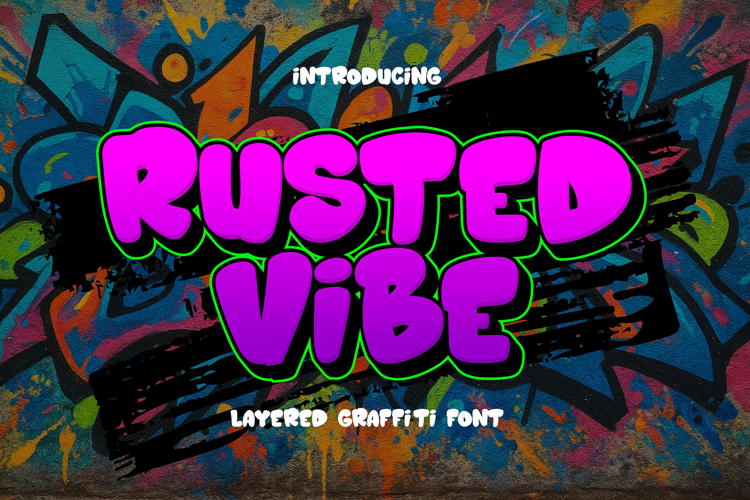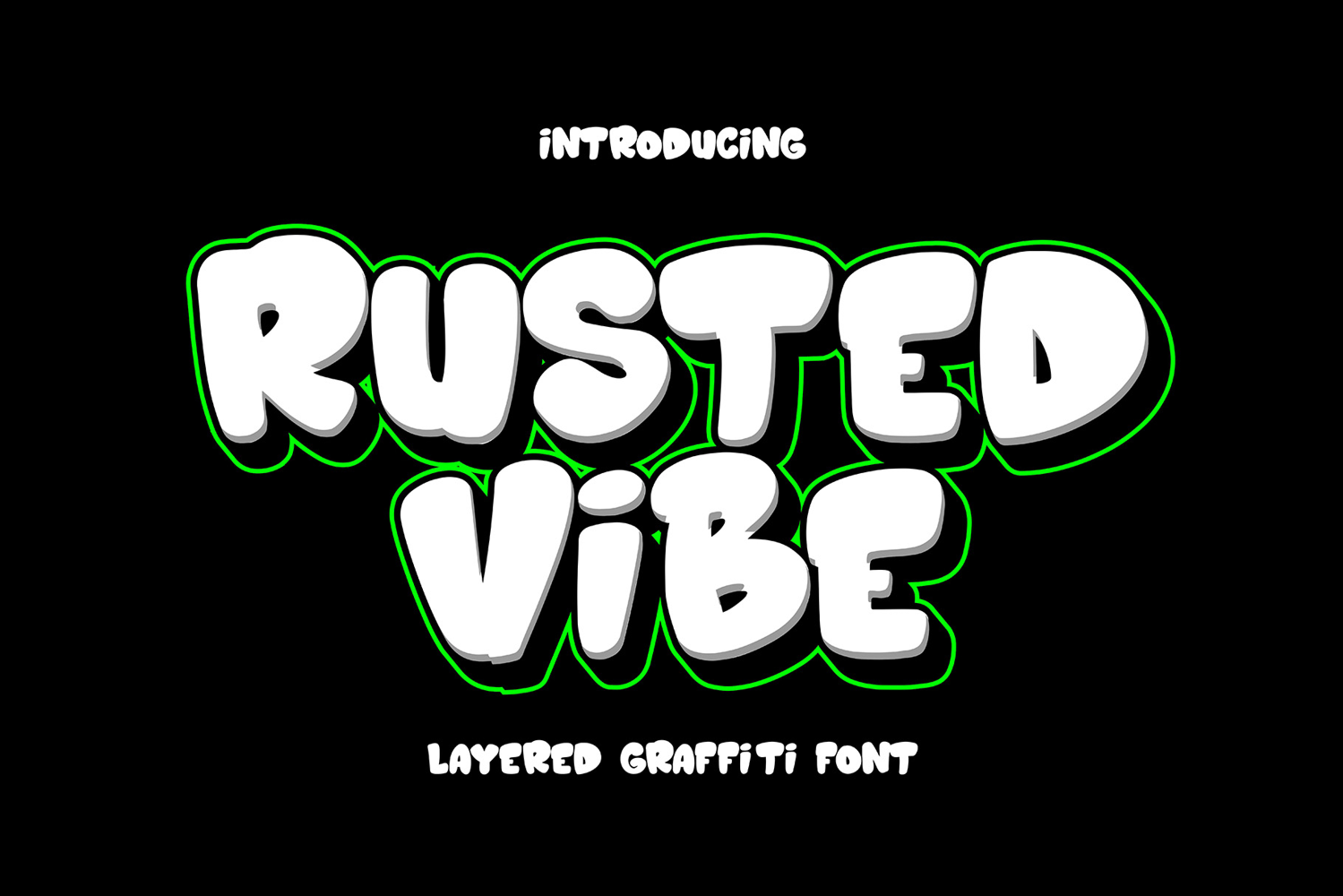
Rusted Vibe Layered Graffiti Font | bold and dynamic
Introducing Rusted Vibe – Layered Graffiti Font, a bold and dynamic typeface crafted to bring authentic street-art energy into your designs. With its unique layered system, this font lets you mix and match styles to create striking visuals that stand out on any canvas. Whether you’re designing posters, banners, event flyers, or digital graphics, Rusted Vibe offers the flexibility and power you need.
The font is designed in all caps for maximum impact. Each letter carries the rugged, spray-painted essence of graffiti while remaining highly legible and clean in composition. From edgy urban layouts to modern advertising campaigns, Rusted Vibe ensures your words are loud, clear, and unforgettable.
With three-layered styles included, you can experiment endlessly with combinations of base, inner details, and shadow effects to achieve depth and dimension in your typography.
Key Features
- All Caps Design – bold and uniform for impactful headlines.
- Support Multilingual – extended characters for global projects.
- Layered Styles – Base, Inner, and Shadow fonts for creative versatility.
- Graffiti Display Look – authentic spray-paint inspired forms.
- Ideal for Posters & Banners – perfect for loud, statement-making visuals.
Why Designers Love It Designers love Rusted Vibe because it gives them full creative control. The layered system makes it easy to build striking typographic effects without extra software tricks. Just stack the Inner and Shadow styles over the Base, and instantly, you’ve got graffiti-style lettering with depth and attitude.
Its all-caps design ensures strong legibility and consistent energy, while the multilingual support makes it usable for campaigns that span different regions. Professionals value its versatility — use it for concert posters, gaming graphics, YouTube covers, event flyers, or even merchandise branding. It’s not just a font; it’s a toolkit for creative expression.
If you’re looking for a layered graffiti font that combines urban edge with professional design quality, Rusted Vibe is the ultimate choice. With three flexible styles, bold all-caps letters, and global language support, it gives you everything you need to make your message impossible to ignore. Add Rusted Vibe to your creative arsenal today and watch your designs explode with energy.